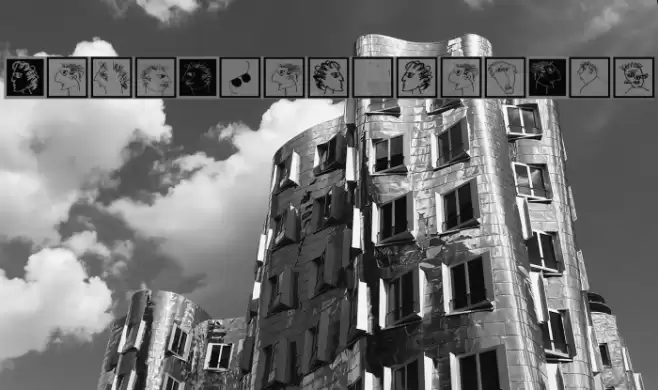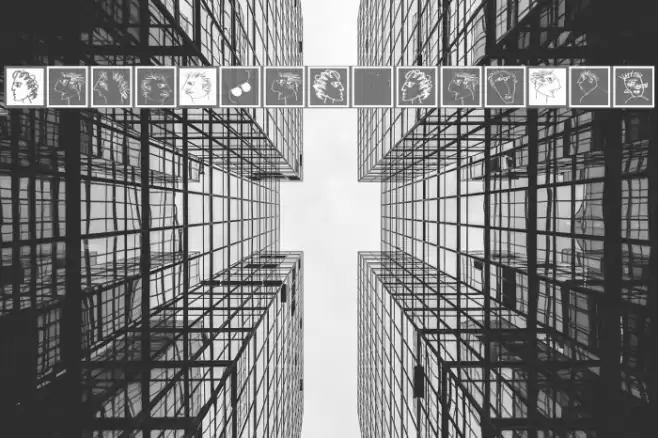
A playful, hand-drawn decorative font where each character is represented by a unique sketch of a human head in profile, featuring varied hairstyles and facial expressions, enclosed in square frames. The style is loose, whimsical, and sketch-like, with irregular line weights and a casual, artistic feel.
Hand-drawn font of quirky head sketches for each character from Uncategorized fonts.
- Proposed Projects: Children’s books, comic titles, posters, creative branding, art projects, event invitations.
- Overall Style: Decorative, Whimsical, Artistic
- Use Case: Logos, Headlines, Posters, Artistic projects